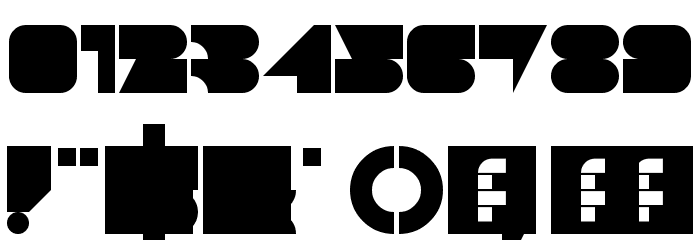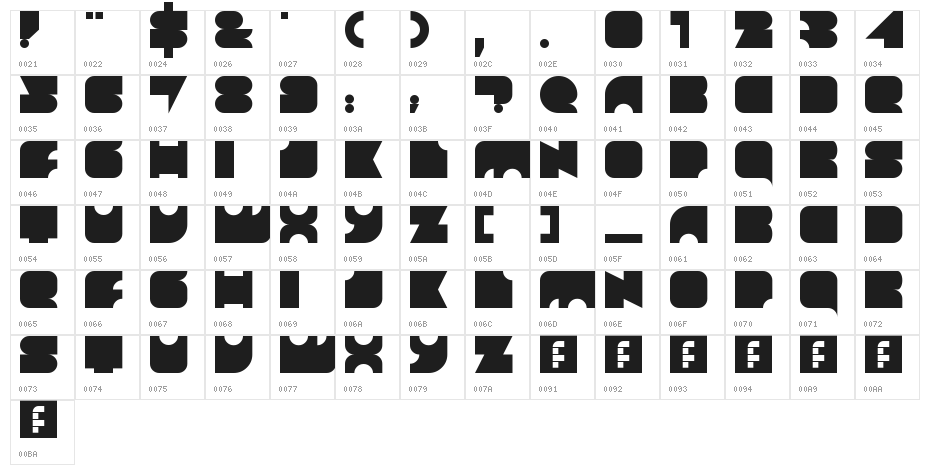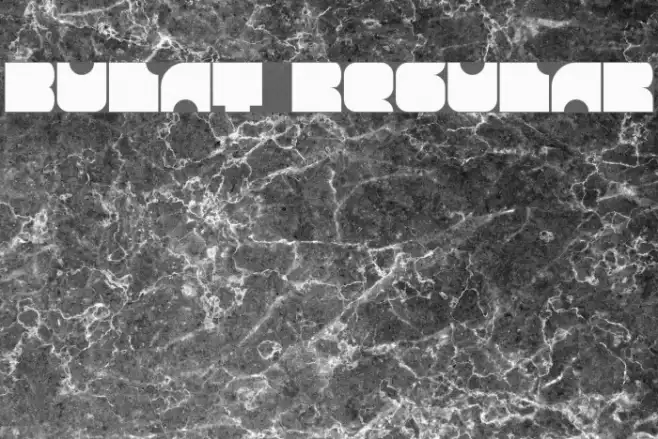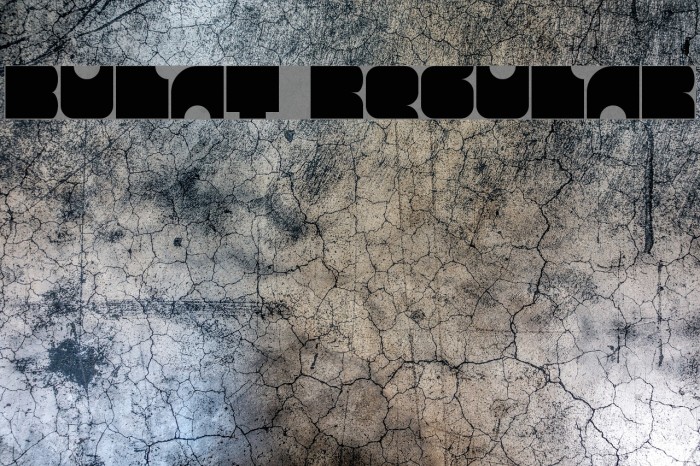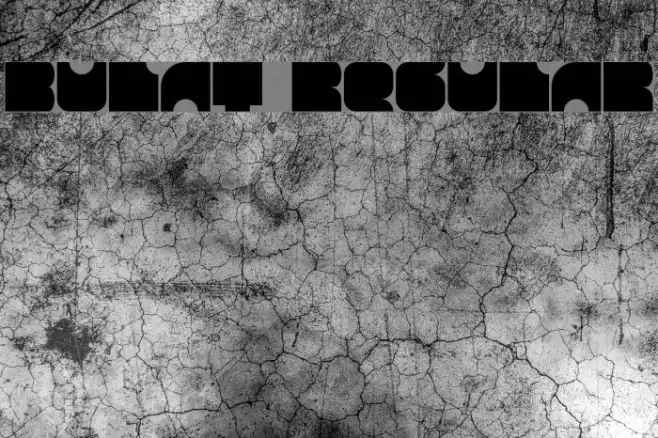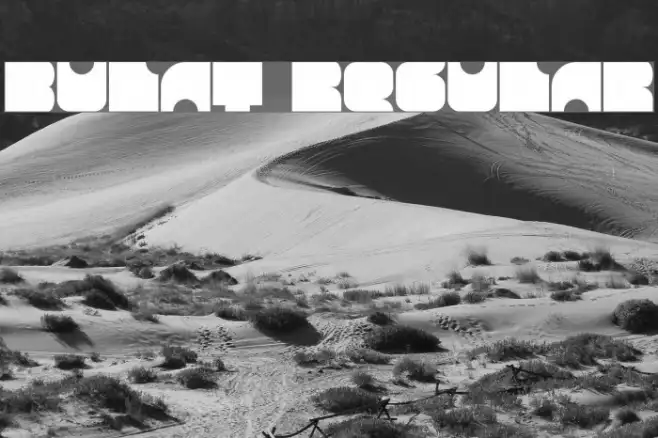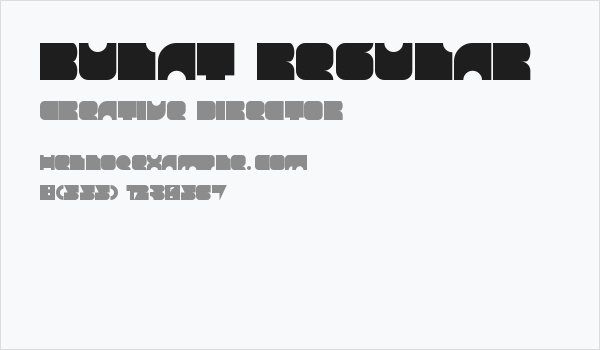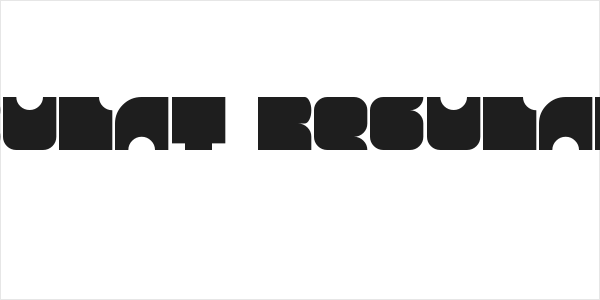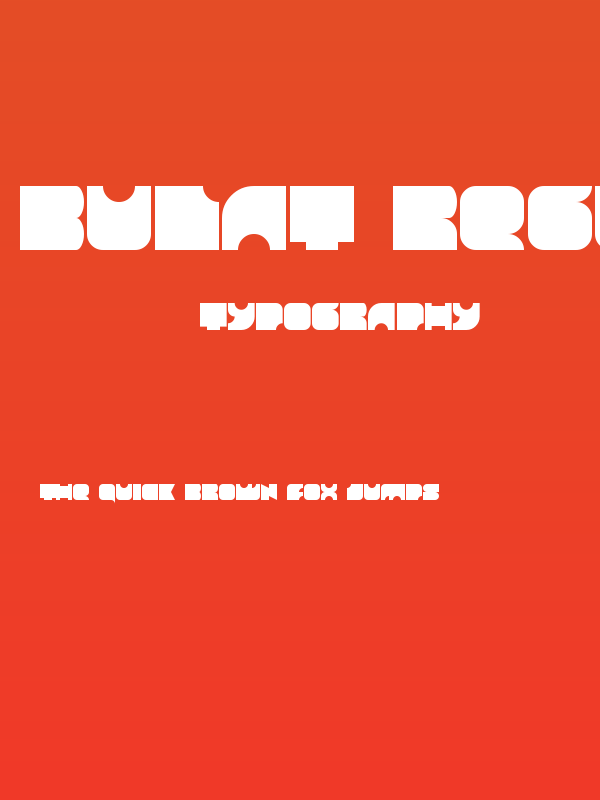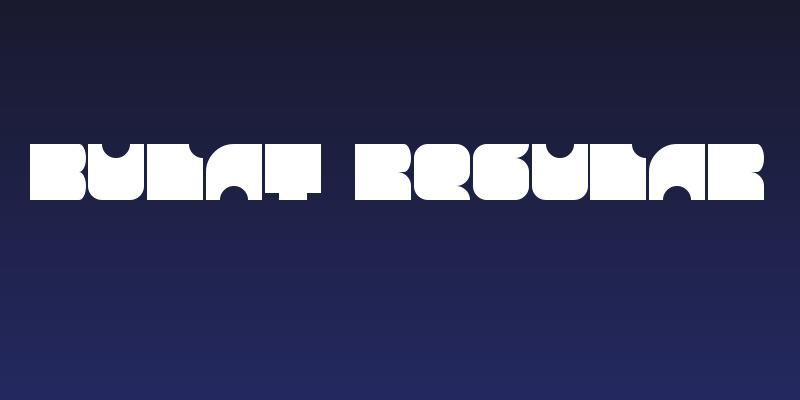
Bulat Regular Font
Bulat Regular Description
This font features a bold and geometric design with a strong emphasis on block-like shapes. Each character is crafted with a unique combination of curves and straight edges, creating a visually striking and modern appearance. The uppercase and lowercase letters maintain a consistent style, while the numbers and special characters follow the same geometric theme. The font's boldness and distinctiveness make it ideal for attention-grabbing designs.
Proposed ProjectsIdeal for posters, logos, branding, and any design requiring a strong visual impact.